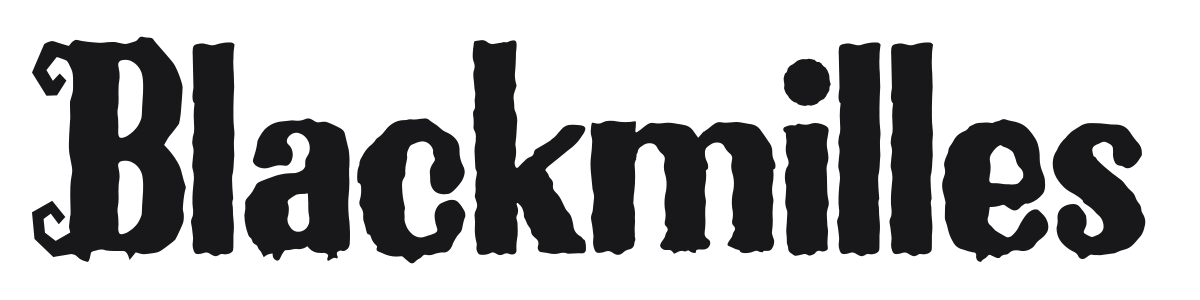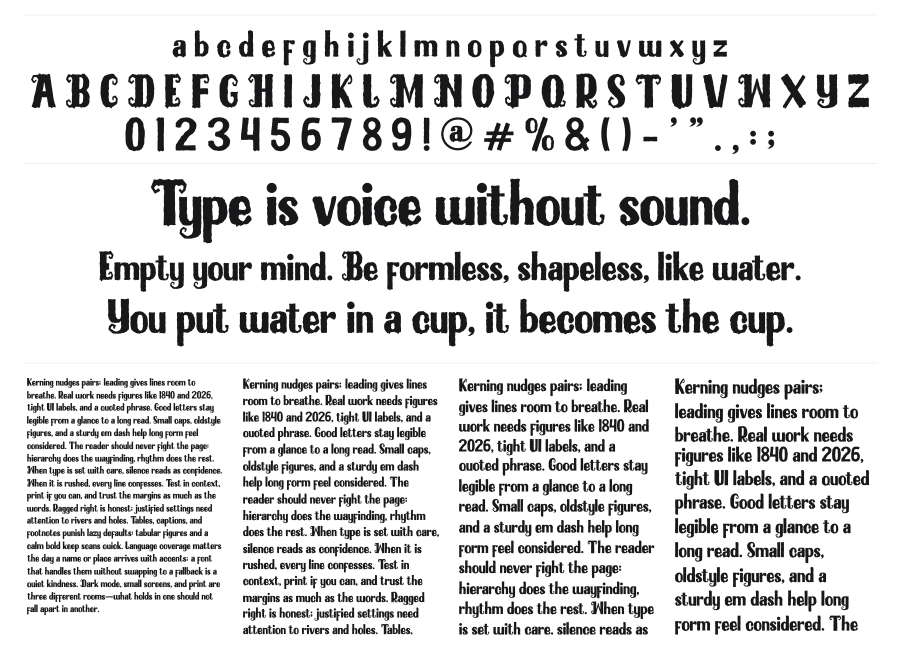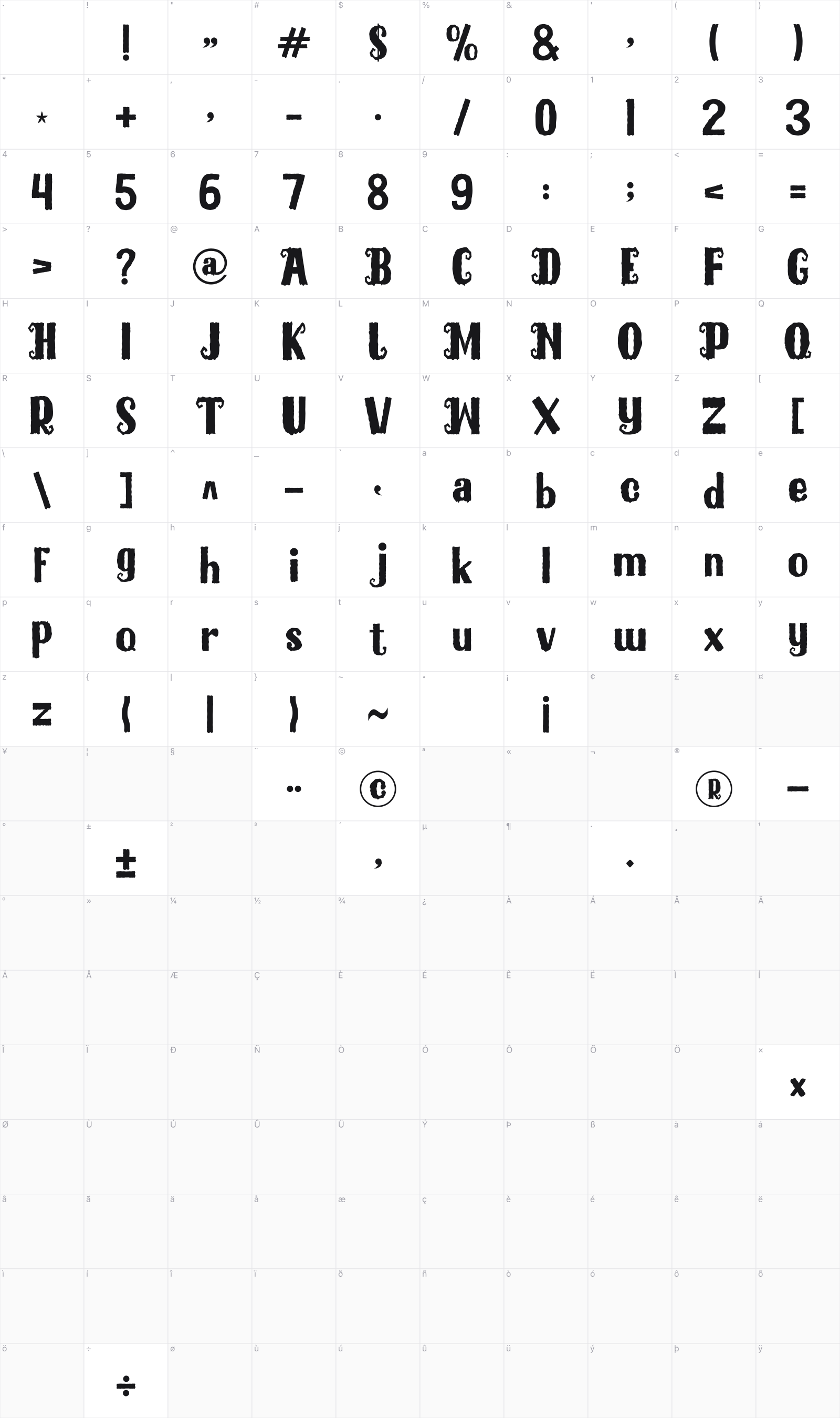
Blackmilles
Blackmilles is a heavy gothic display font blending blackletter structure with a rough, distressed texture. The thick stems and wedge serifs carry a deliberately worn, aged quality that leans into dark and dramatic aesthetics. Strong at large sizes for horror-themed posters, metal album art, and edgy brand identities.